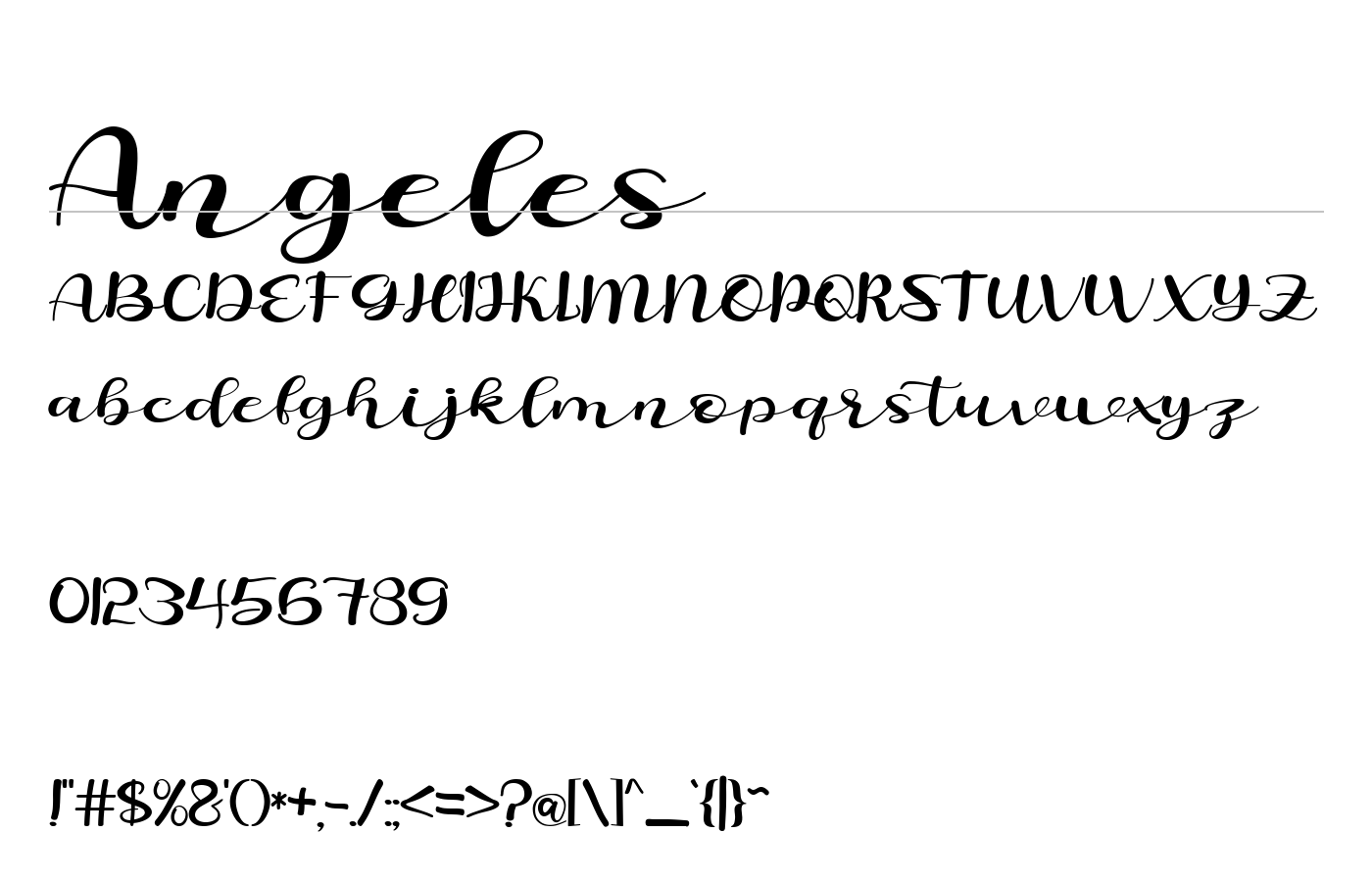
Angeles Font is a graceful script typeface featuring smooth, flowing strokes and a playful yet elegant personality. Its moderate contrast and fluid letterforms with distinctive swashes make it perfect for creative branding, invitations, or stylish headlines that require a personal, artisanal touch. This font works beautifully in projects aiming for a charming, sophisticated look with a modern calligraphic flair.
Angeles Font